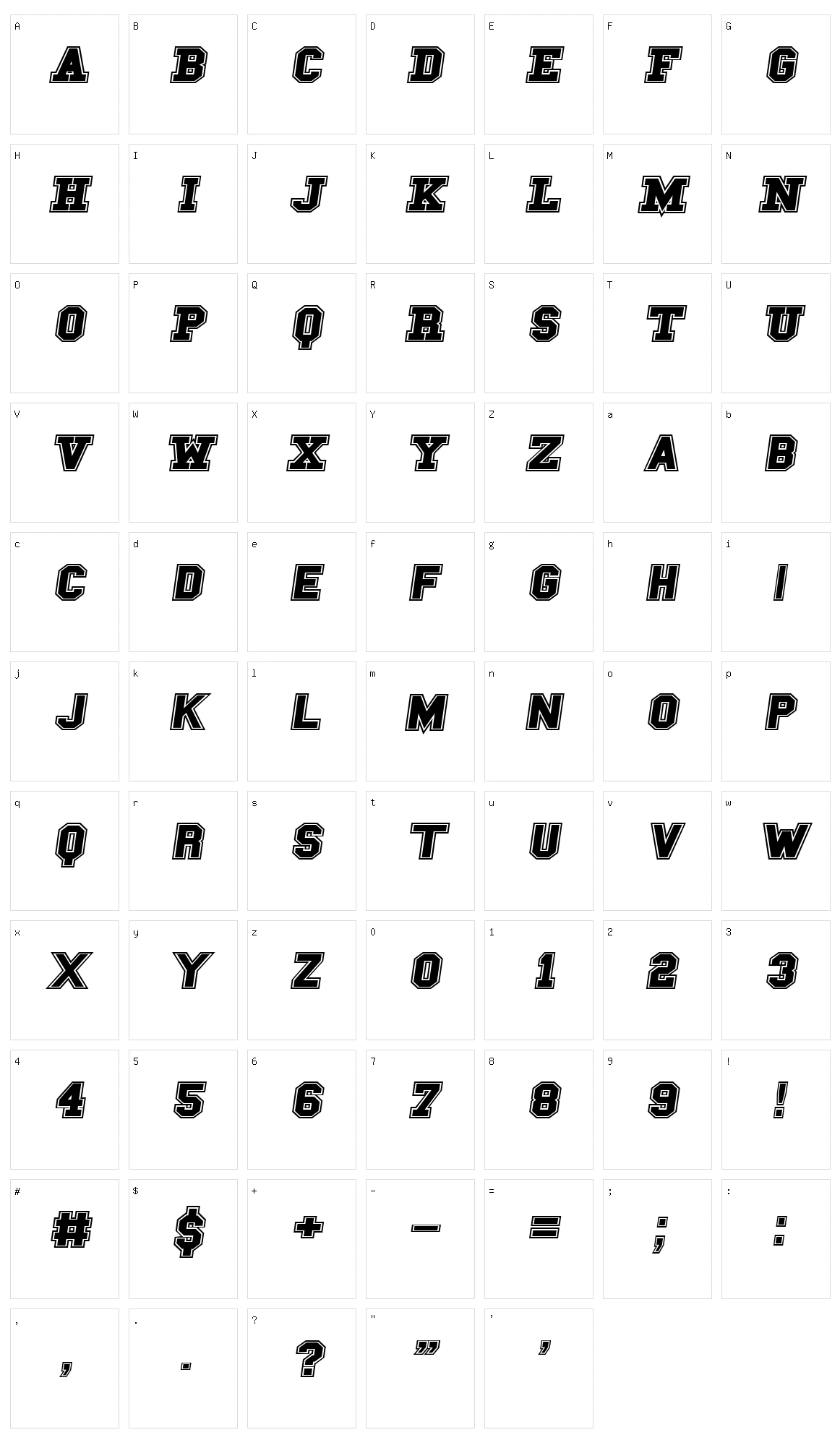
The free font Campus A is carefully designed by Leonard Posavec - LeoSupply.co, showcasing a thoughtful balance of creativity and usability and falls under the Old School font style. When you download the ZIP file, it contains only 386.05 KB of font files, making it lightweight and quick to download. Please review the license details below to understand permitted usage and distribution rights. If license information is not available, we recommend using this font for personal projects only or contacting the author directly for commercial usage permissions.